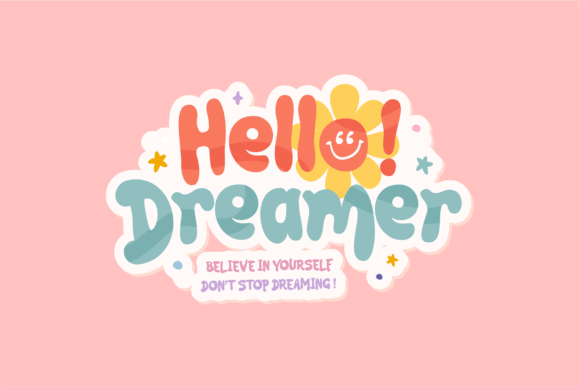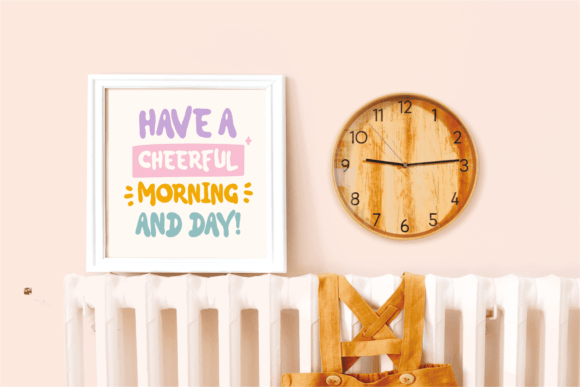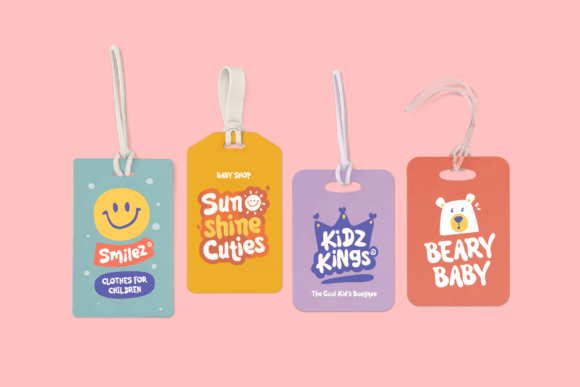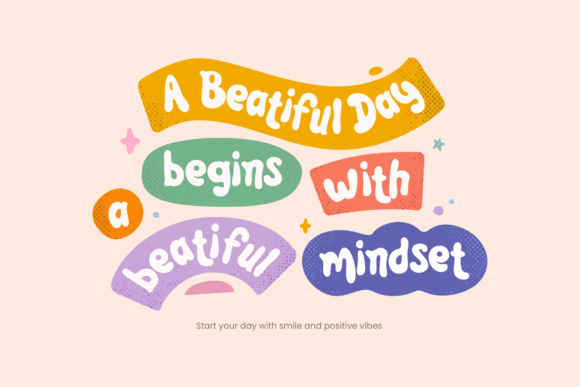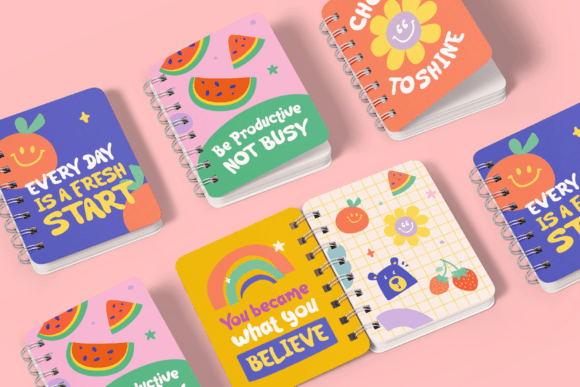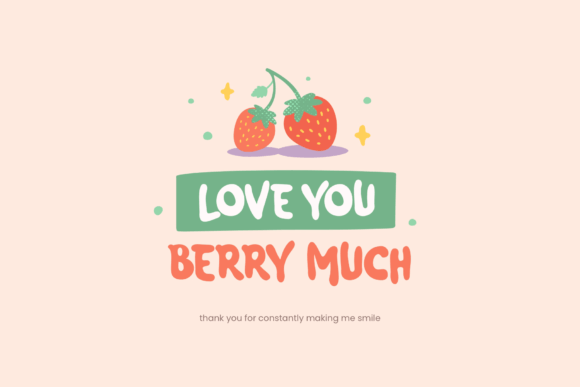
Introduction to Melt a Licka Font
Remember that moment when you stumbled upon the perfect font for your creative project? It’s like a spark of inspiration that ignites the entire design process. For designers, finding the right font can make all the difference between a mediocre design and a truly memorable one.
One such font that has been making waves in the design community is the Melt a Licka Font. This fun display font is based on a more childish sans serif, making it perfect for casual designs, children’s brands, and even food brands. Its relaxed and modern feel also makes it an excellent choice for social media design and stickers.
Melt a Licka Font
- High-quality design resource with a unique, playful style
- Includes multiple font styles and weights, allowing for versatility in design
- Perfect for designers, artists, and creatives working on projects that require a fun and quirky touch
Honest Review: Melt a Licka Font
As a designer, I’m always on the lookout for unique and high-quality design resources to elevate my creative projects. Melt a Licka Font has been a recent addition to my collection, and I’m excited to share my thoughts on it.
- Unique and playful design style that adds a fun touch to any project
- High-quality font files with clear and readable characters
- May not be suitable for professional or formal projects due to its playful nature
- No bold or italic font weights available, limiting its versatility
What is Melt a Licka Font?
Tips for Getting the Most Out of Melt a Licka Font
For best results, use Melt a Licka Font in designs with a transparent background or a simple color scheme. Experiment with different font sizes and styles to add visual interest to your design.
Melt a Licka Font is ideal for creative projects such as logos, social media graphics, and infographics. Its unique design makes it perfect for adding a touch of personality to your designs.